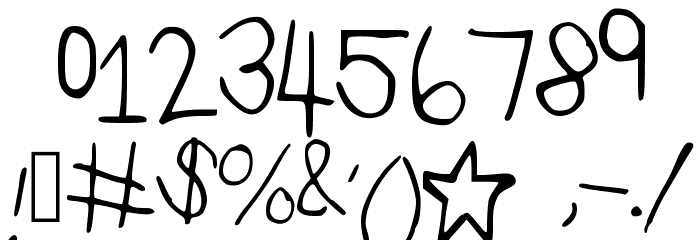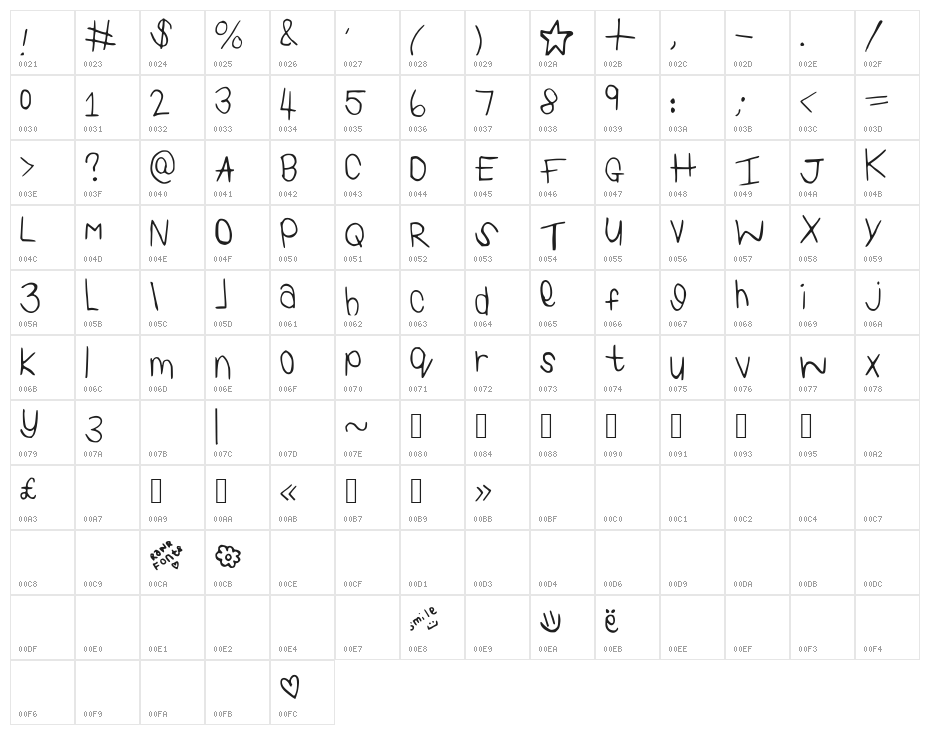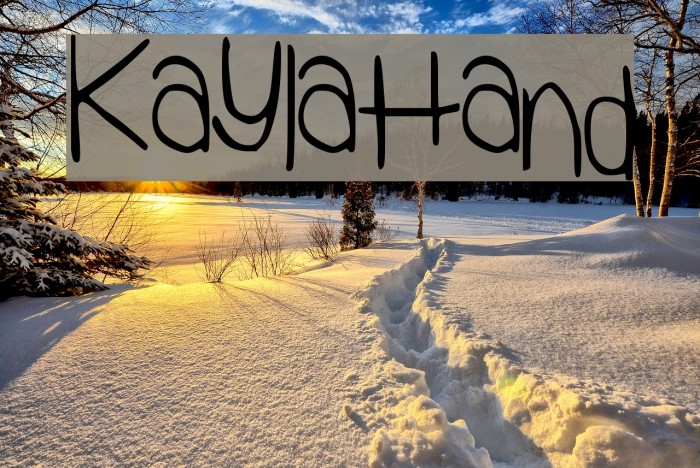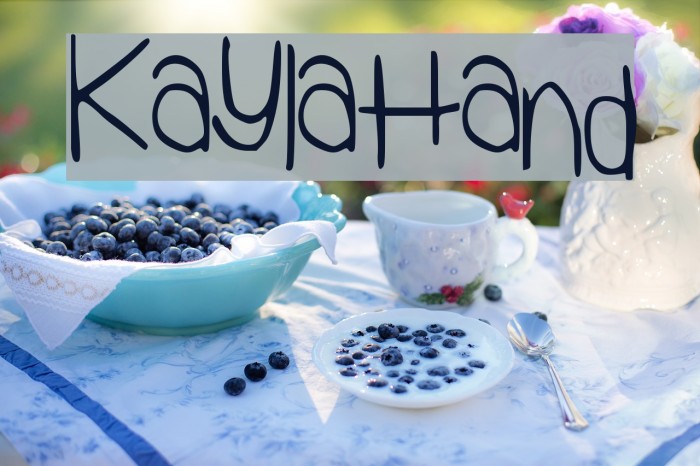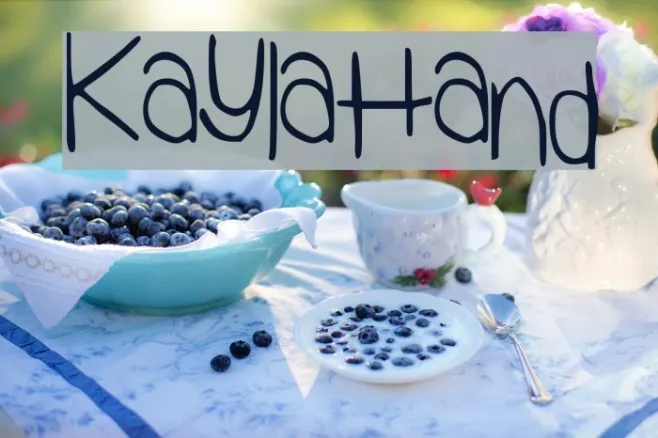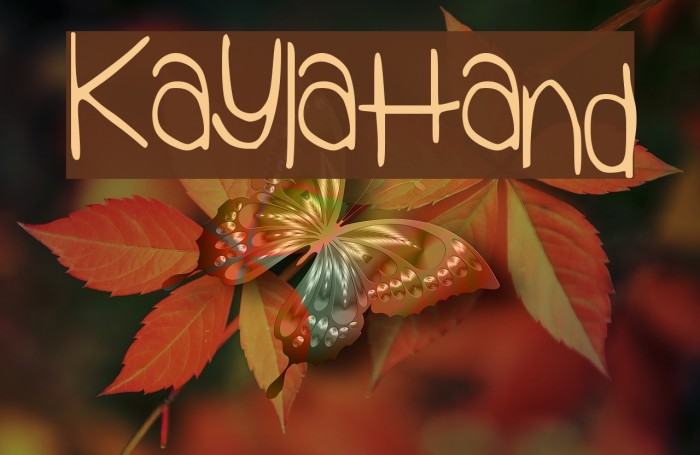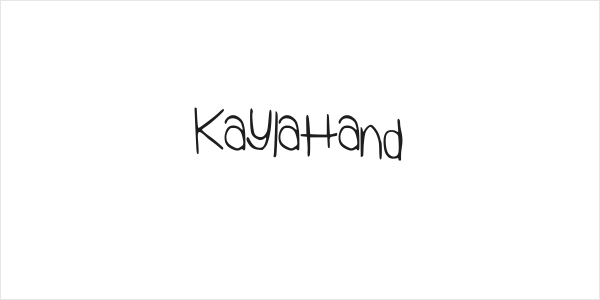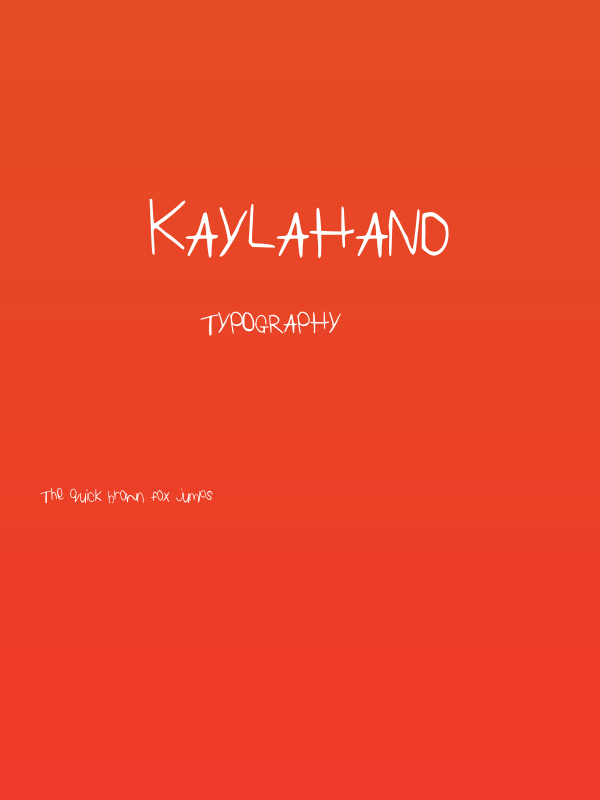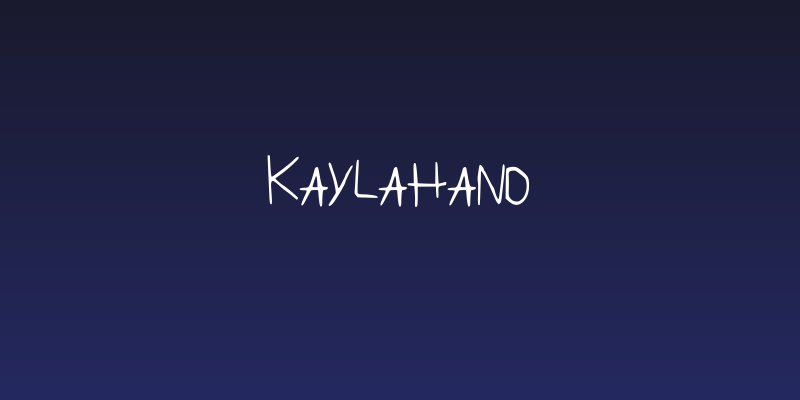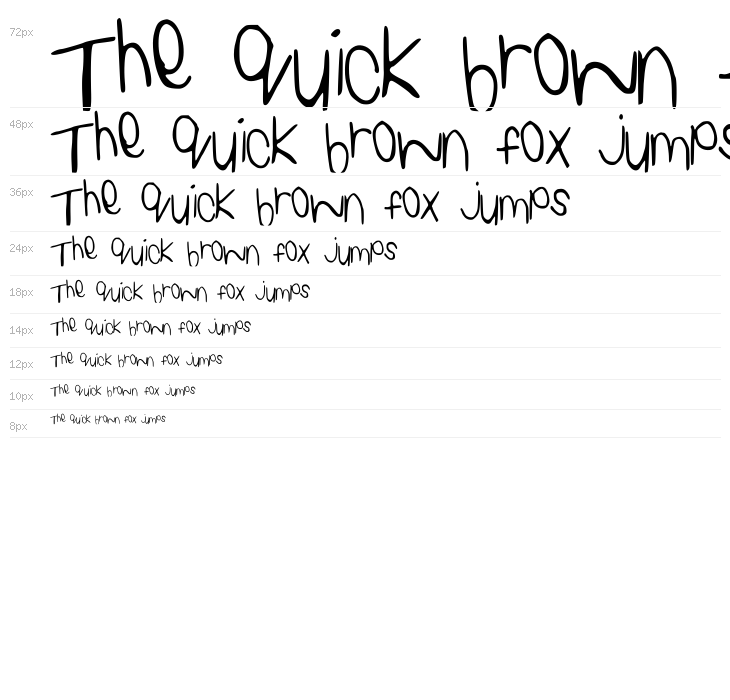
KaylaHand Font
KaylaHand Description
This font exhibits a playful and casual handwritten style, characterized by its irregular and slightly whimsical letterforms. The uppercase and lowercase letters maintain a consistent flow, with rounded edges and a slightly uneven baseline, adding to its informal charm. The numerals and special characters follow the same playful aesthetic, making it suitable for creative and informal designs. The strokes are moderately thick, providing good readability while maintaining a light-hearted feel. This font is ideal for projects that require a personal touch, such as greeting cards, children's books, or playful branding.
| Proposed Projects | Ideal for greeting cards, children's books, playful branding, and informal invitations. |